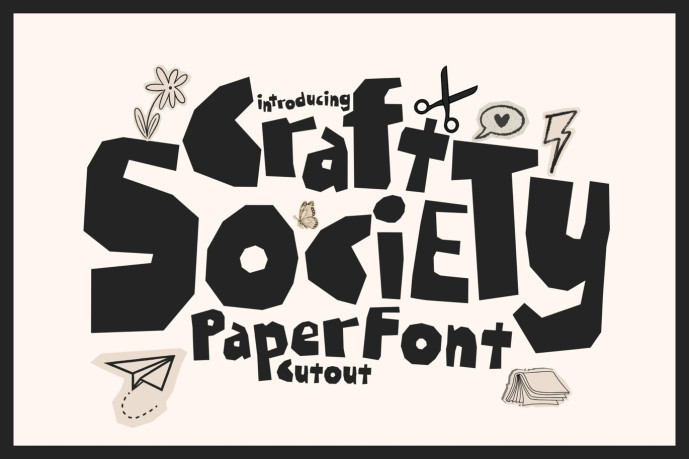
Craft Society Font
Designer: epdesigns
Craft Society Font a remarkable paper-cut typeface imbued with raw creativity, an urban edge, and handcrafted energy. Designed to give the impression that each letter has been cut, torn, and assembled by hand, this typeface offers a bold artistic presence that instantly stands out.
The Craft Society embraces imperfection in the most expressive way possible. Its irregular edges, clean cuts, and overlapping shapes create a dynamic visual texture that feels authentic, spontaneous, and full of attitude. Each character resembles a work of art, giving your typography a DIY spirit with a modern, rebellious edge.
With its bold paper-cutting style and artistic personality, Craft Society is perfect for designers who want to push boundaries and create experimental, avant-garde, and visually striking works. It captures the essence of contemporary art culture, blending street style aesthetics with handcrafted charm.